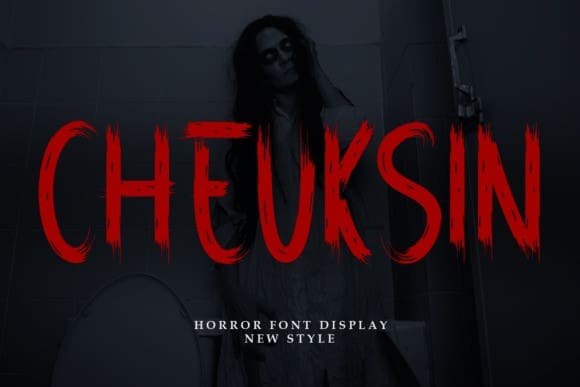
Cheuksin Brush Font
Cheuksin Brush Font, is a sweet and friendly handwritten display font. Cute and fun, this font is ideal for writing posters, movie titles, banners, cards, or any other design that might need a fun touch!